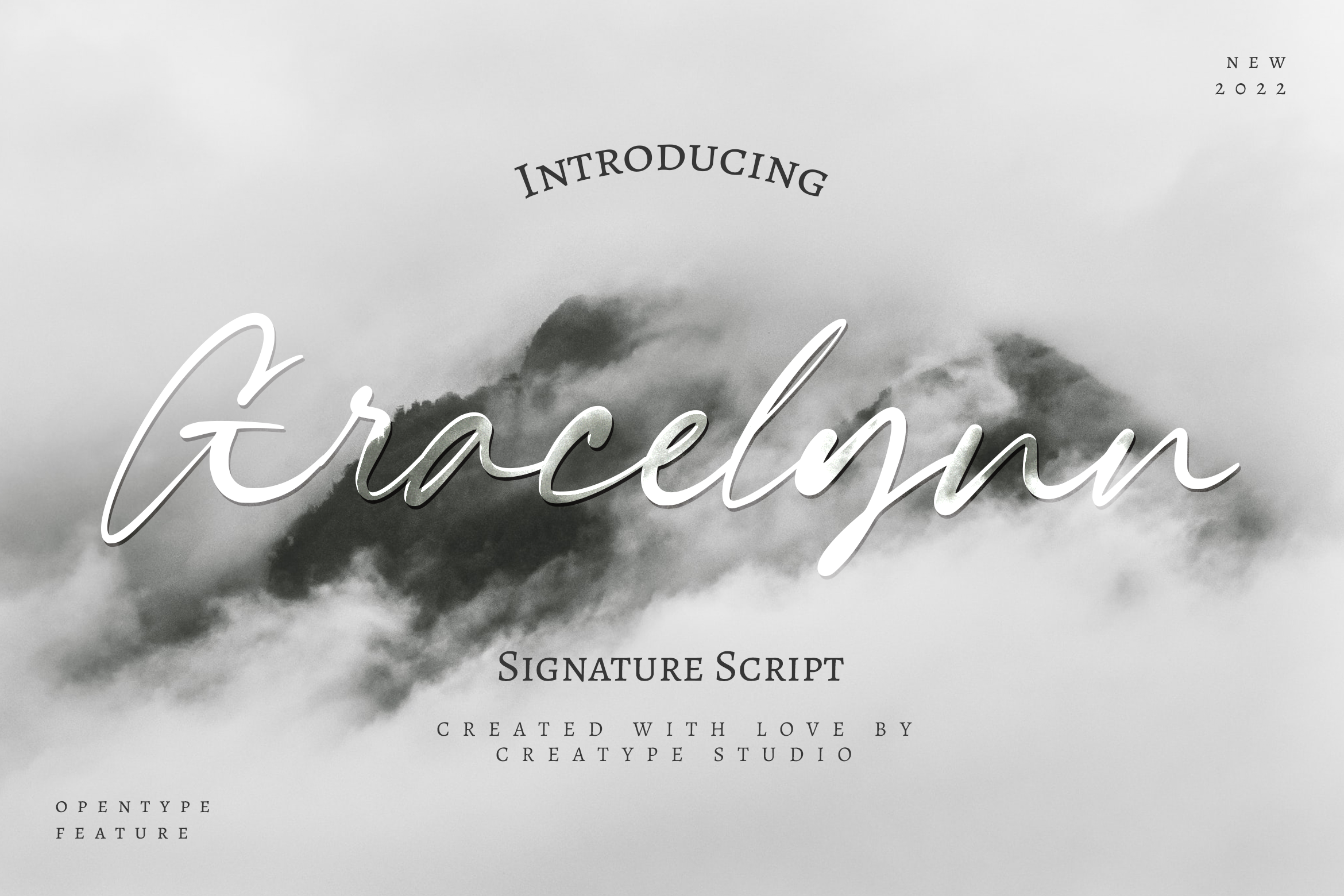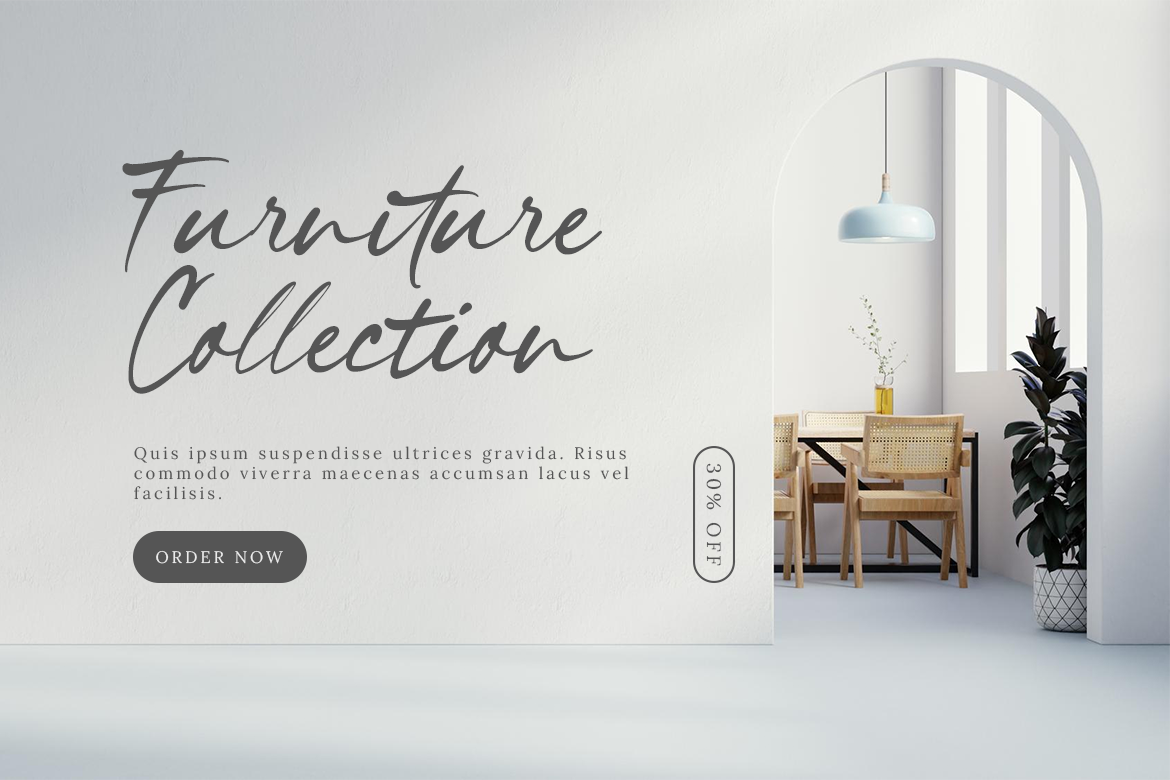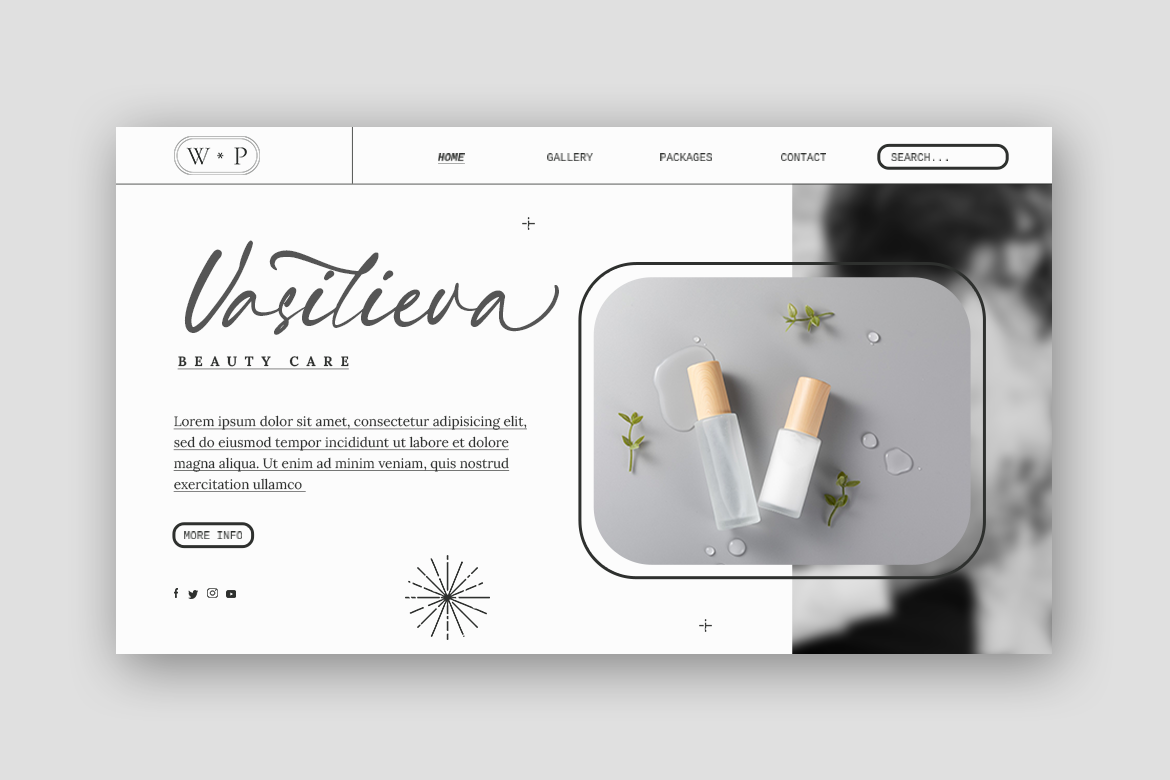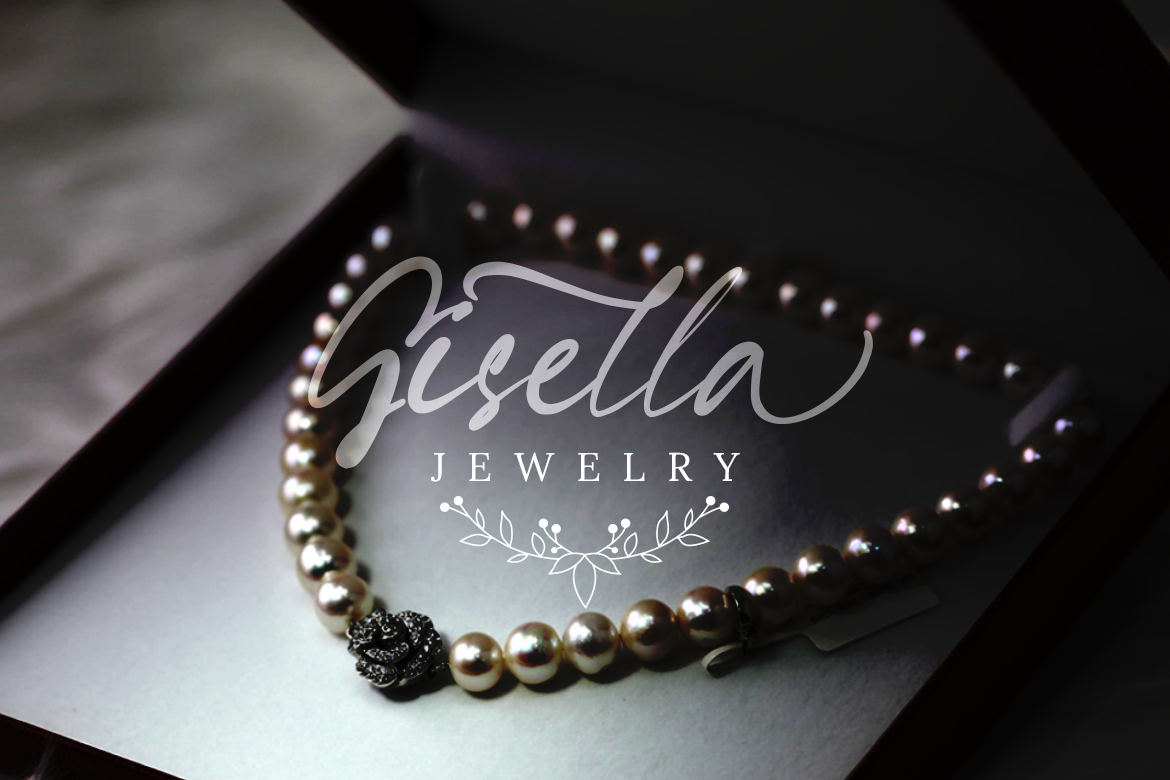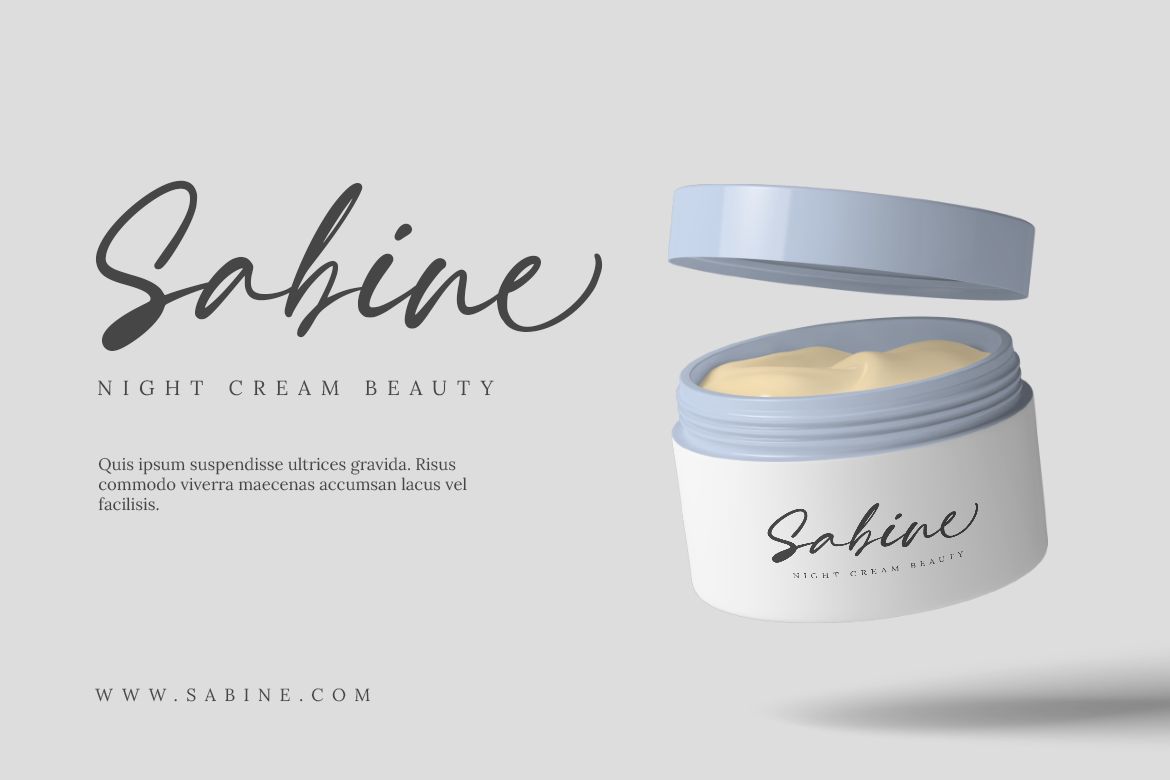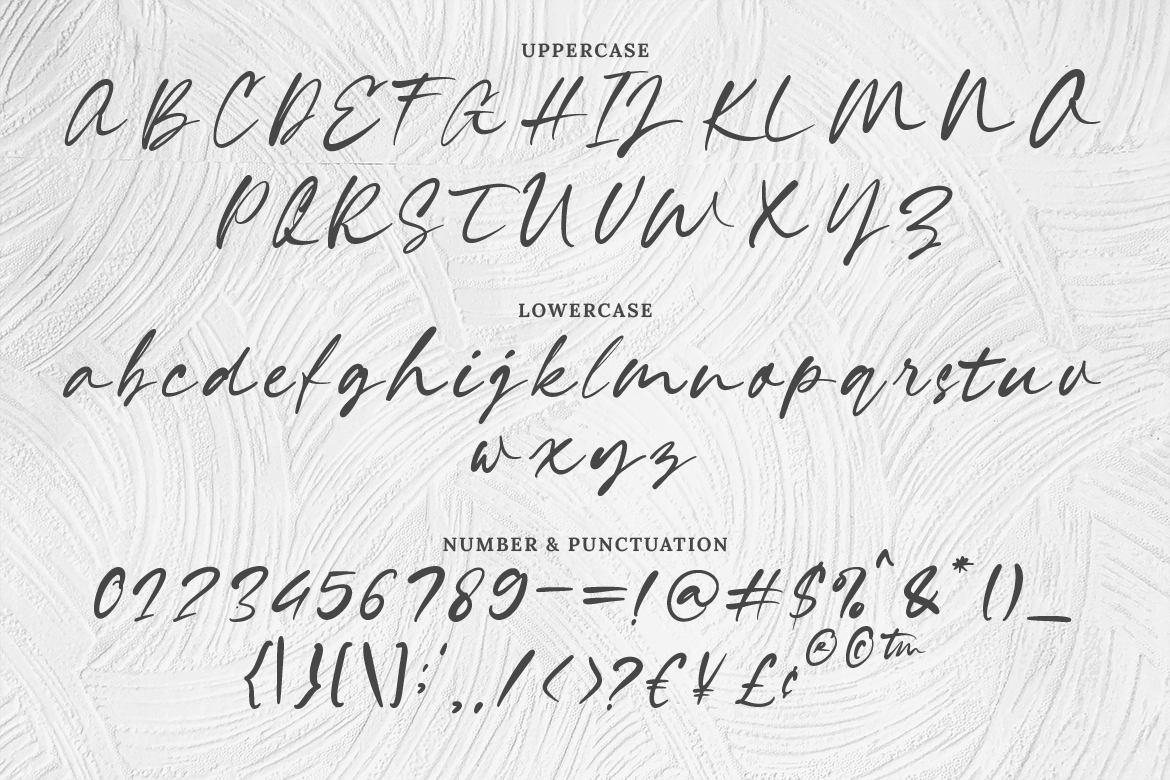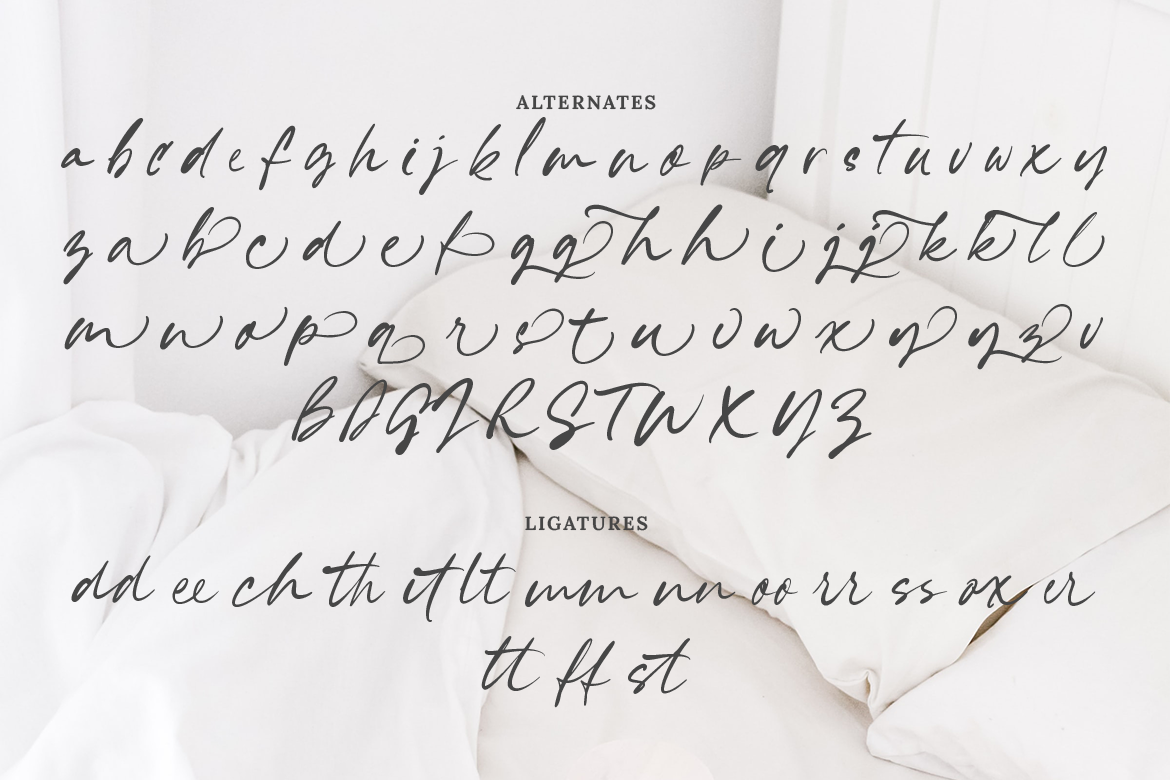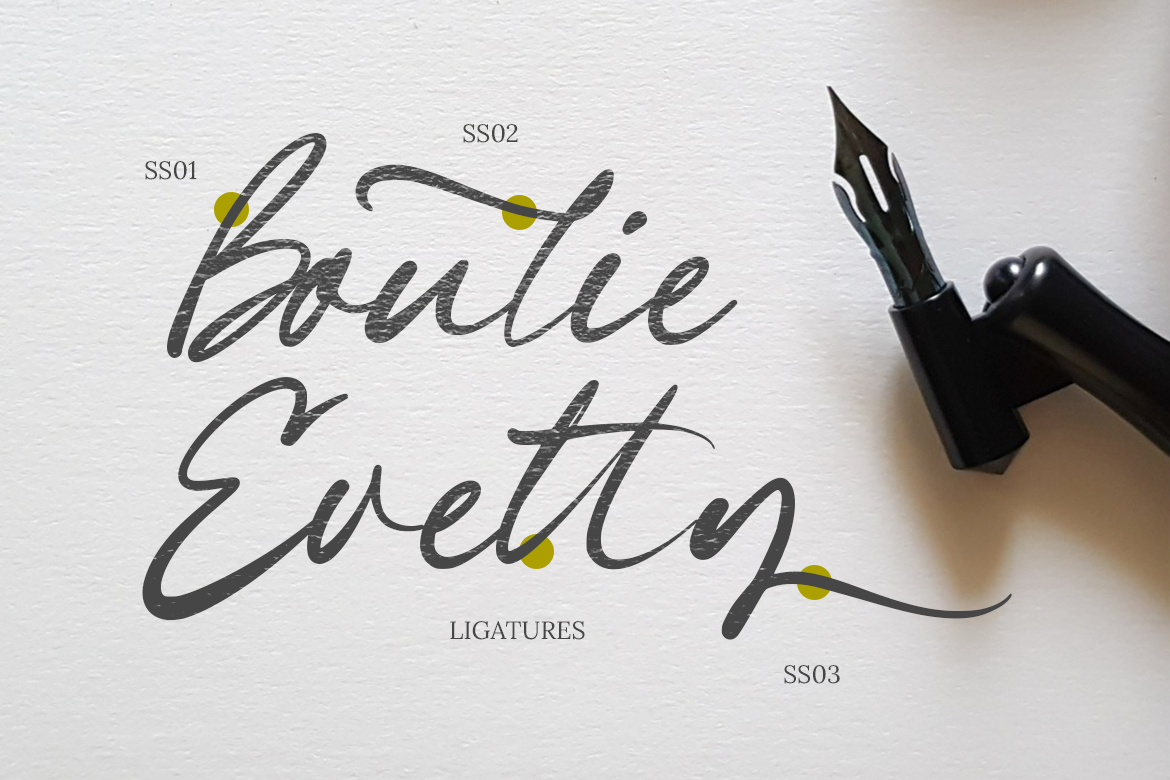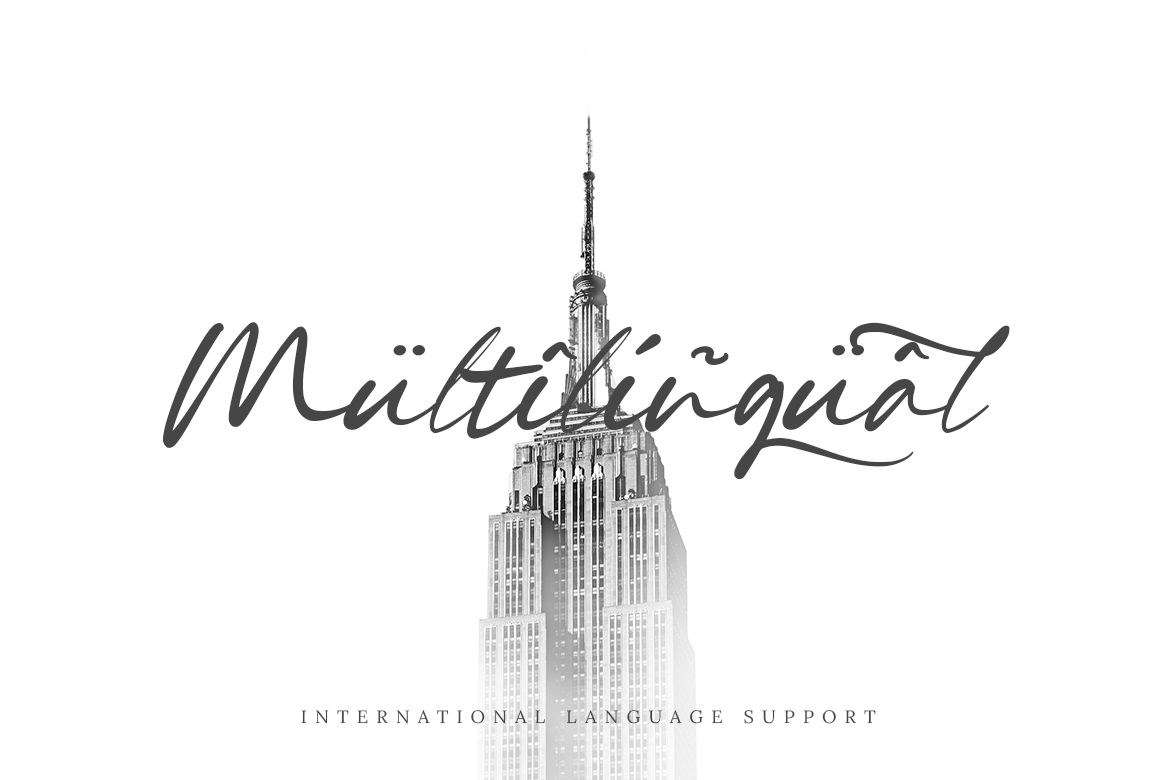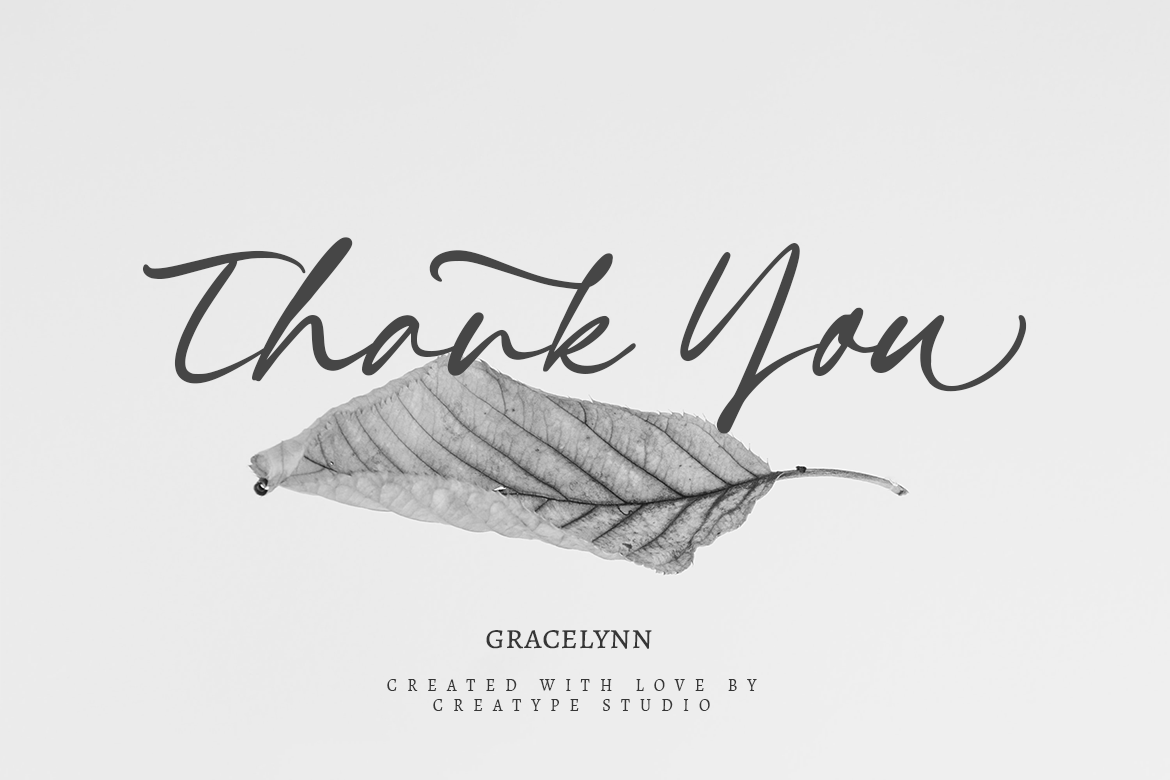
Gracelynn Signature Script
Gracelynn is a clean and flowy typeface that is perfect for every design need. All the curves that Gracelynn has are flawless.
Gracelynn is perfect for branding projects, logo, wedding designs, social media posts, advertisements, product packaging, product designs, label, photography, watermark, invitation, stationery and any projects that need handwriting taste.